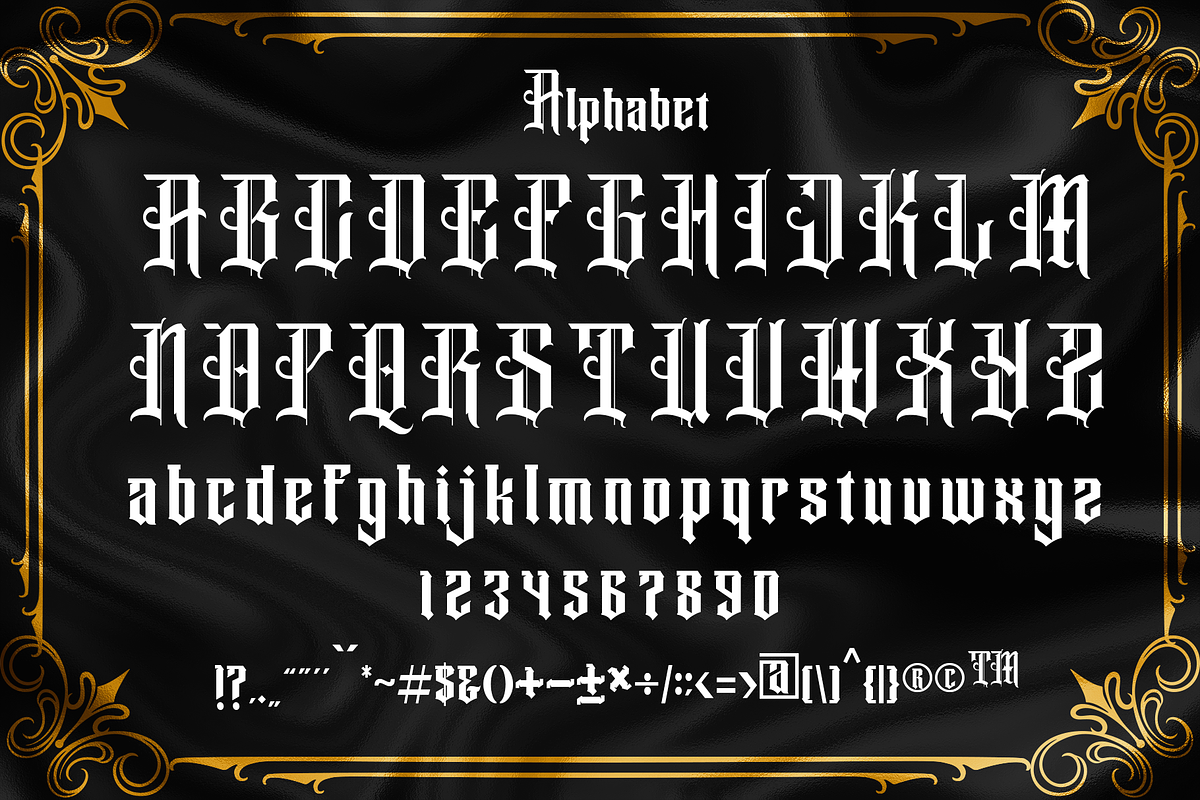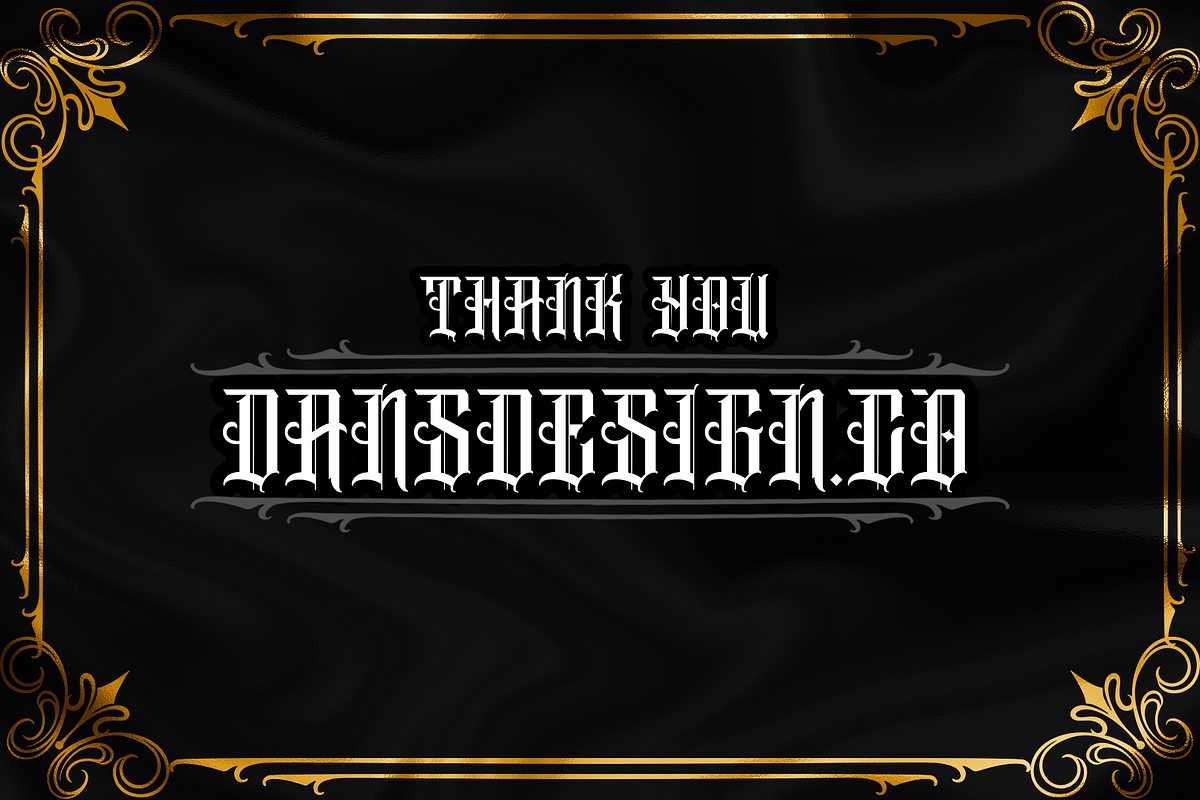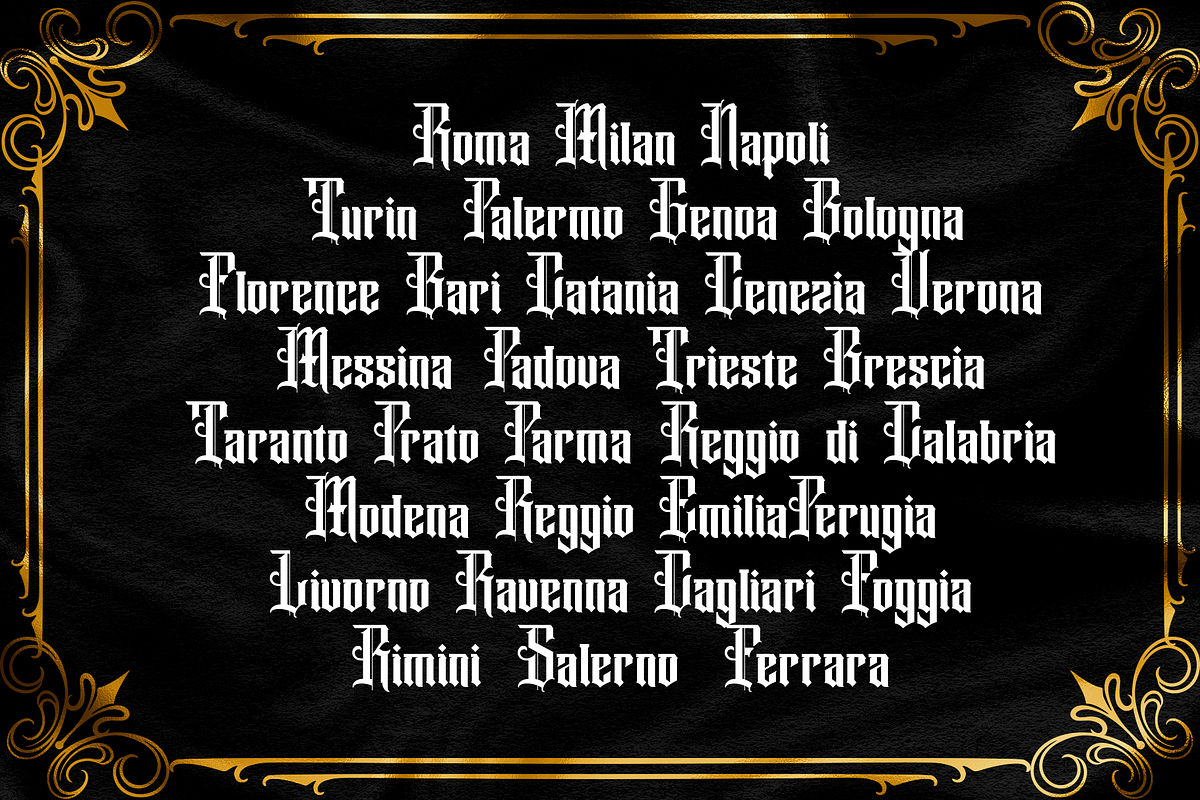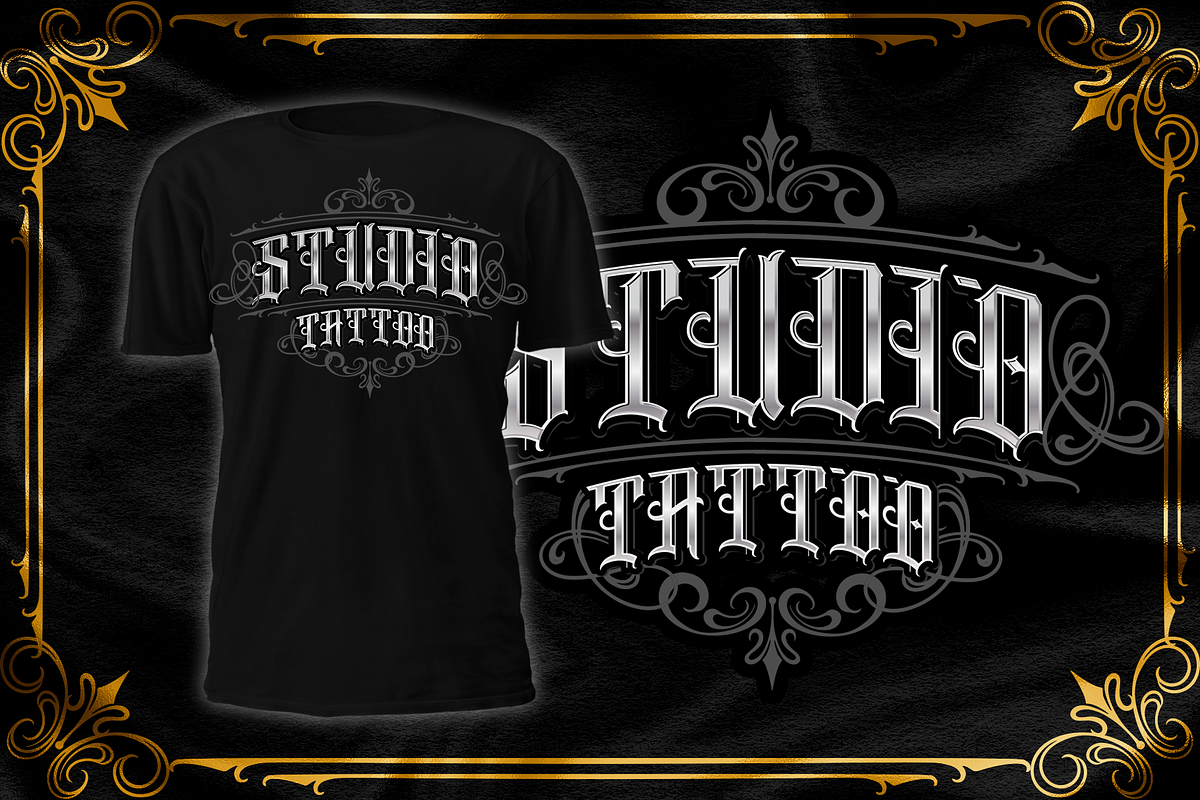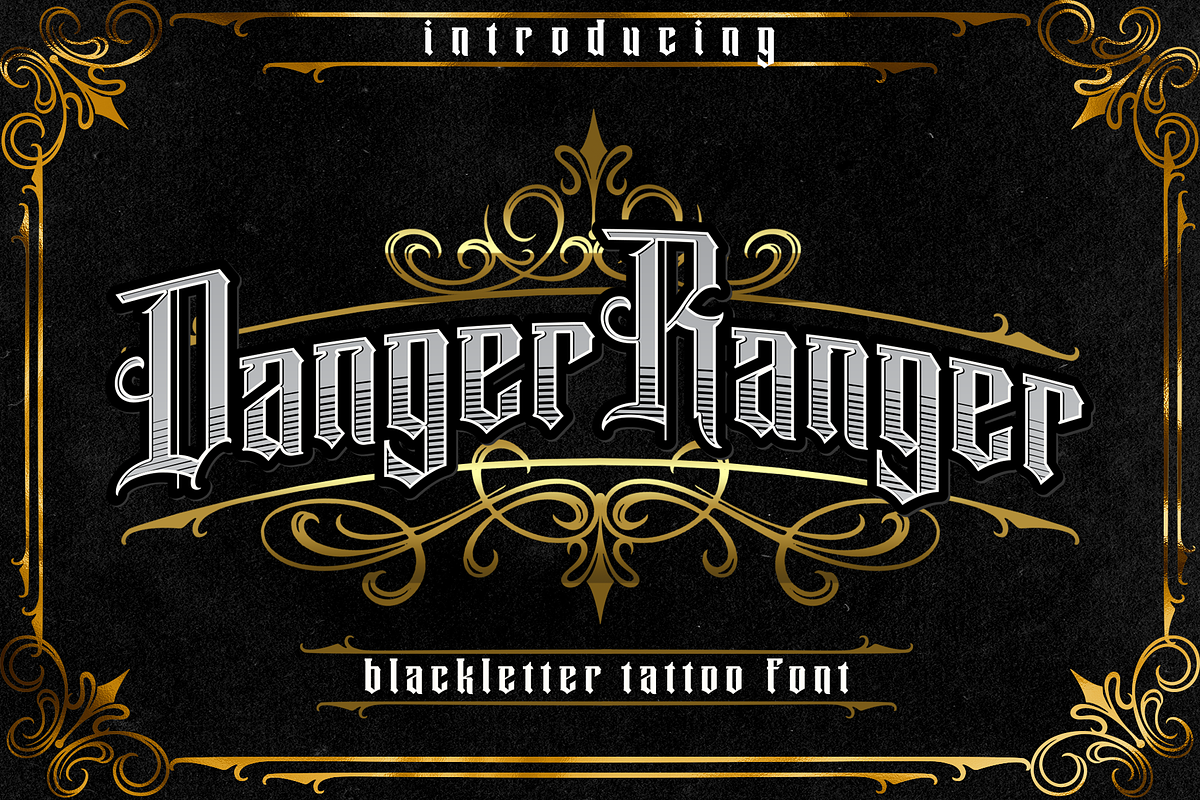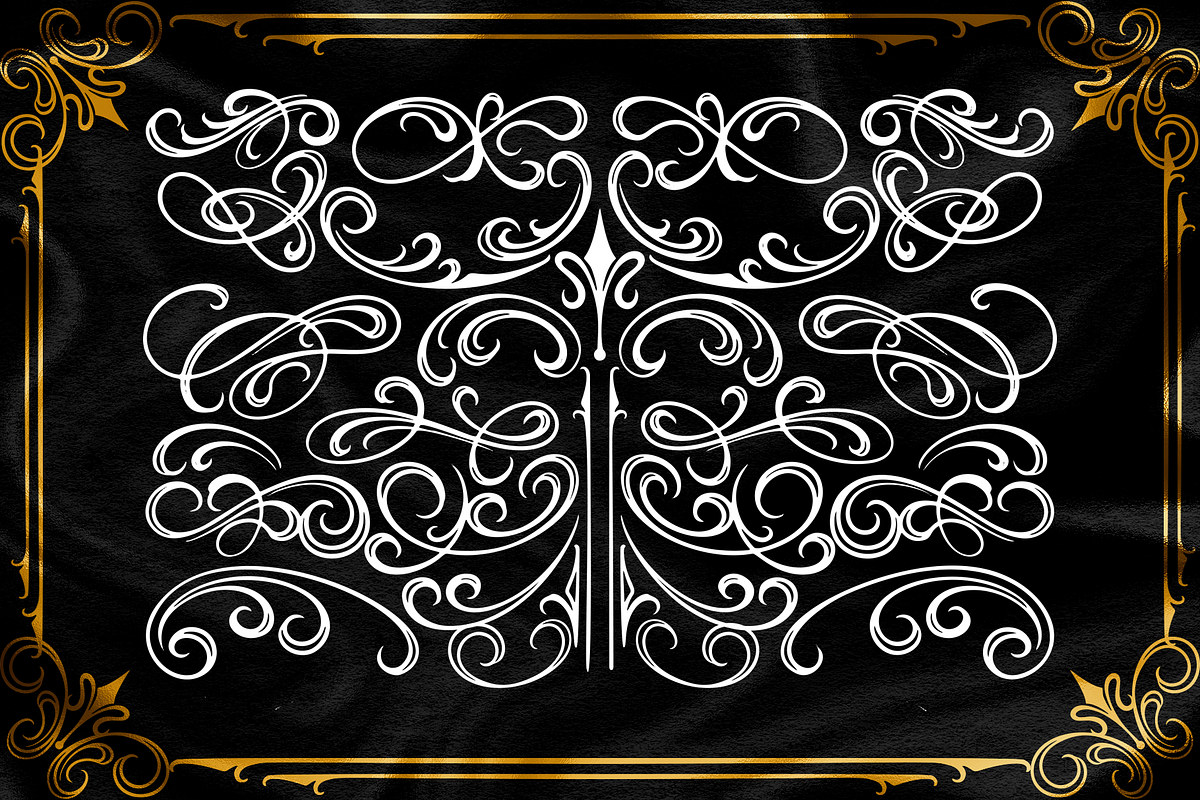
Dansdesign Proudly present DANGER RANGER modern blackletter font, This font is made with references to various letters that I combine and design with my style.
DANGER RANGER are great and usefull for product logo, poster title, headline, packaging, badge, wedding card logo, clothing brand logo, Vintage design and much more
- DANGER RANGER regular font
- DANGER RANGER ornament